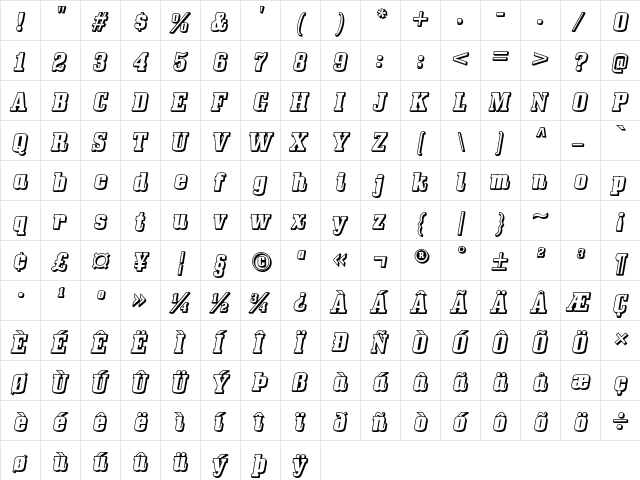
Bullpen 3D
| Style | 3D |
Design Context for Bullpen Typeface
Bullpen offers clean, dependable letterforms without strong stylistic allegiance, making it a practical choice for designers who need flexibility.